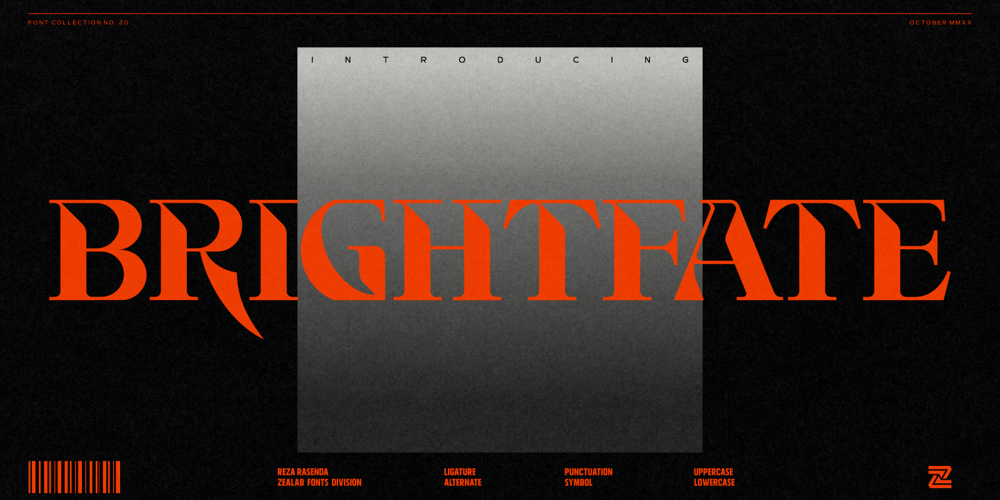
Brightfate Font Family was designed by Reza Rasenda and published by Zealab Fonts Division. Brightfate contains 1 styles and family package options. Brightfate is font designed by Reza Rasenda & Riska Candra Dewi, with design choices and a combination between the medieval times and urban street wear themes. Brightfate comes with stylistic, alternates, ligatures and supports multilingual languages. Create unique & beautiful logotype, use it as an elegant solution for your next magazine layout, or choose Brightfate for any graphics that require a sleek look with a elegant flair.